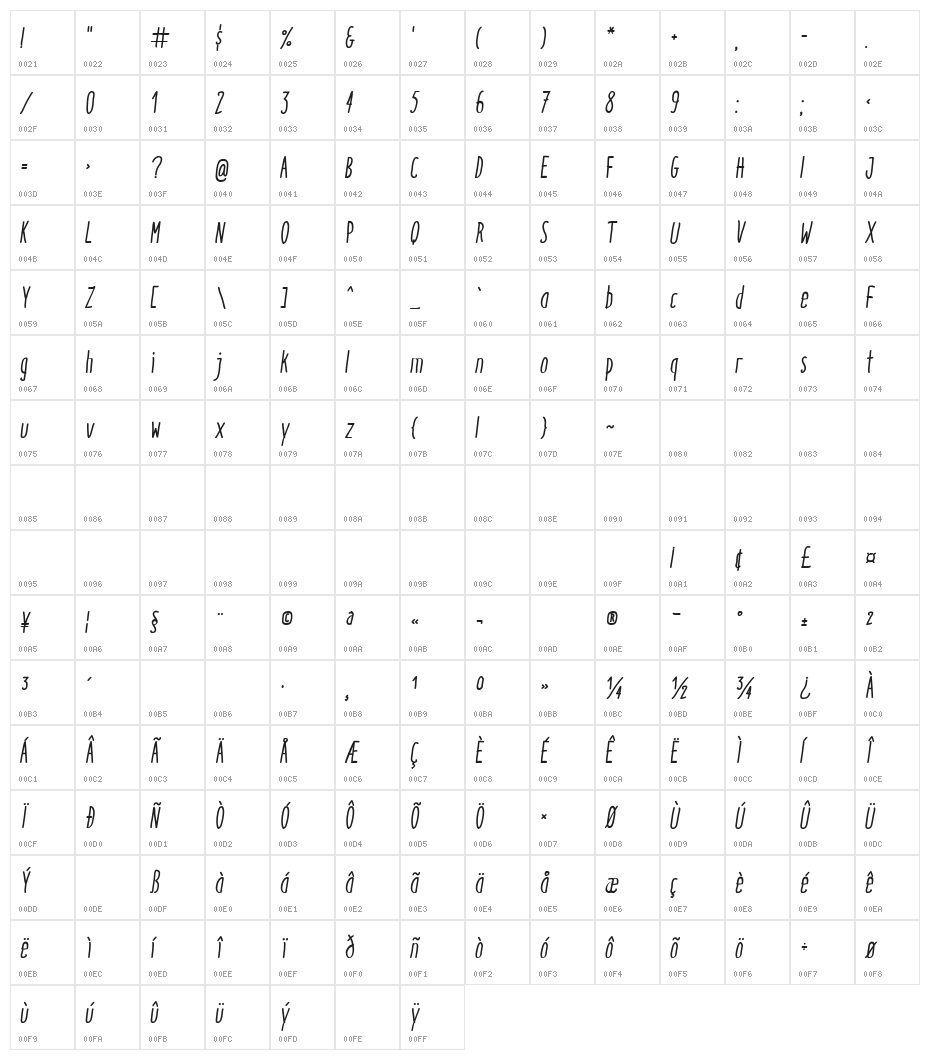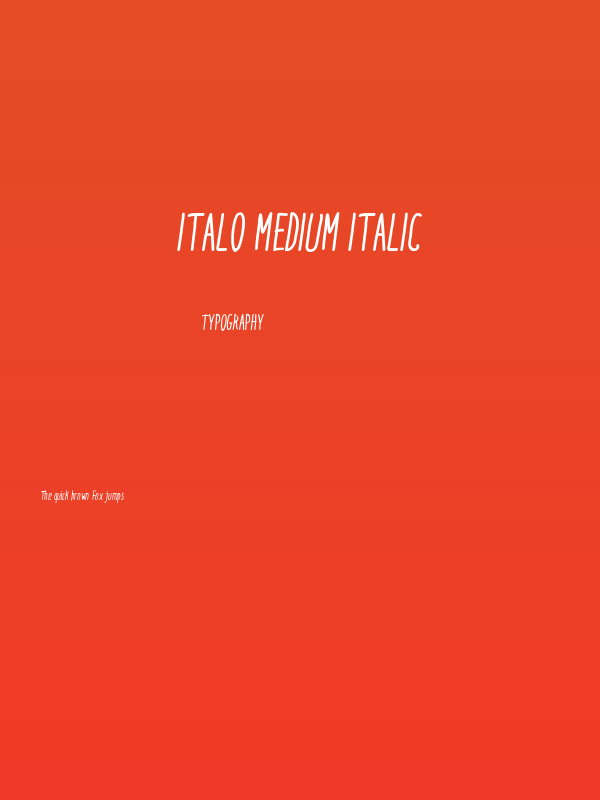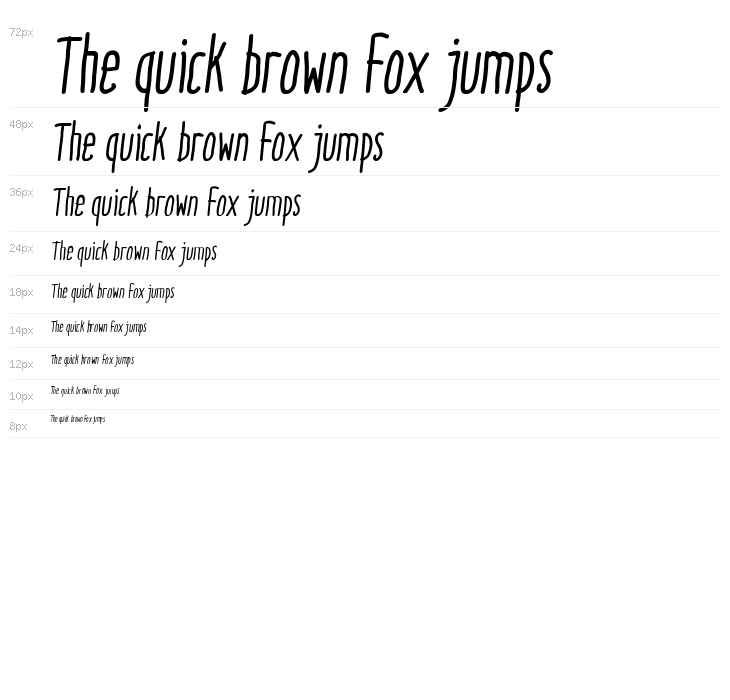
Italo Medium Italic Font
Italo Medium Italic Description
This font features a playful and dynamic style with a handwritten appearance. The letters are slightly slanted, giving it an italicized look that adds a sense of motion and fluidity. The strokes are consistent in width, providing a medium contrast that is easy on the eyes. The characters are well-spaced, ensuring readability while maintaining a casual and informal tone. This font is versatile, suitable for both digital and print media, and can be used to add a personal touch to various design projects.
| Proposed Projects | Ideal for greeting cards, invitations, personal blogs, and creative branding projects. |